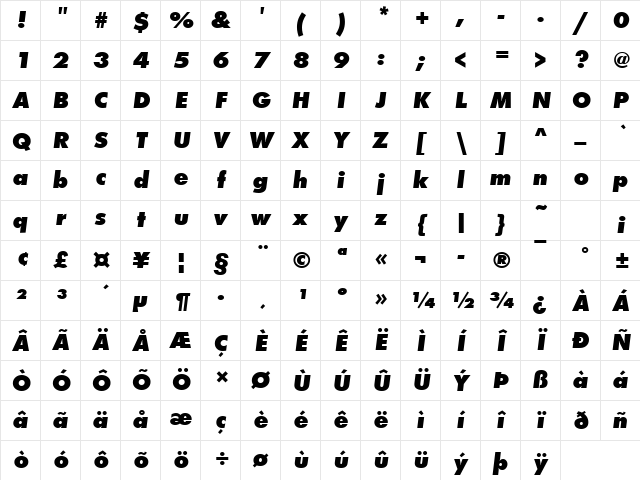
FuturaTExtBol Oblique
FuturaTExtBol Family
FuturaTExtBol Oblique
Design Context for FuturaTExtBol
FuturaTExtBol has a distinctly futuristic character, with geometric precision and clean angles that feel at home in technology, gaming, and sci-fi contexts. The slanted form adds forward momentum and visual energy.